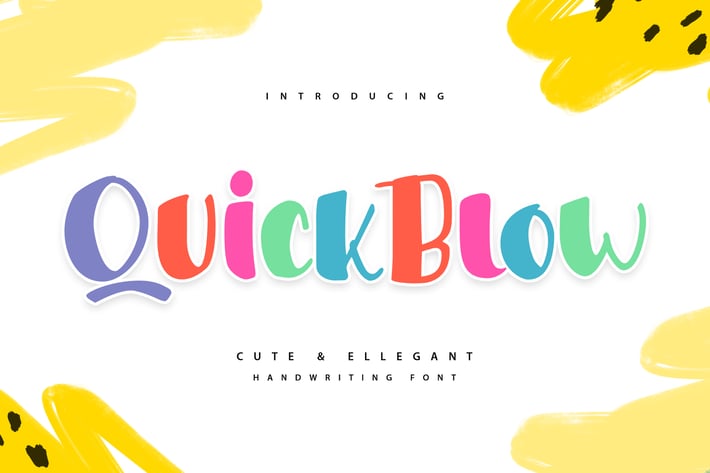
Quickblow | Qute & Ellegant Handwriting Font
Quickblow | Qute & Ellegant Handwriting Font with a calligraphy style, So beautiful on invitation like greeting cards, branding materials, business cards, quotes, posters, and more!